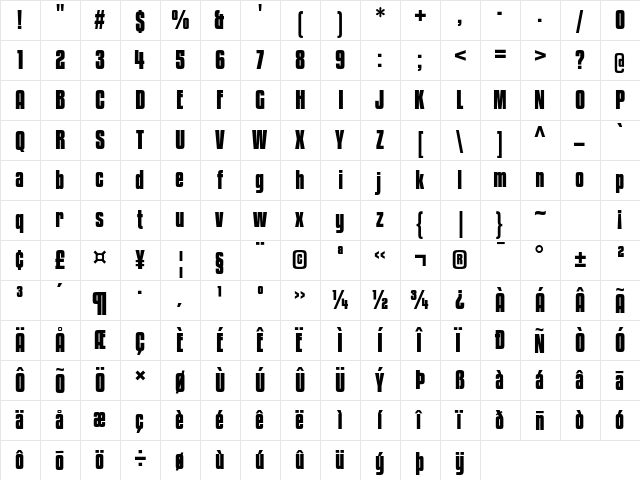
Kenyan Coffee Bold
Design Context for Kenyan Coffee Typeface
Kenyan Coffee offers clean, dependable letterforms without strong stylistic allegiance, making it a practical choice for designers who need flexibility. Its bold stroke weight gives it real presence on the page.